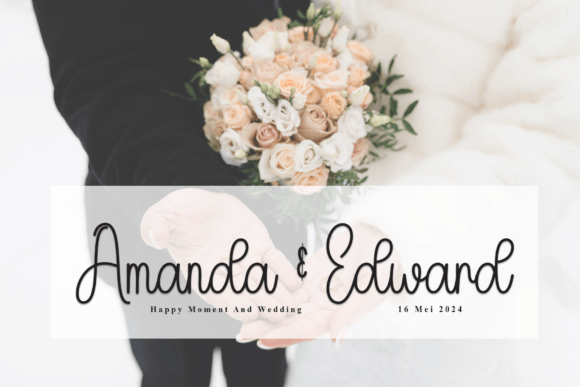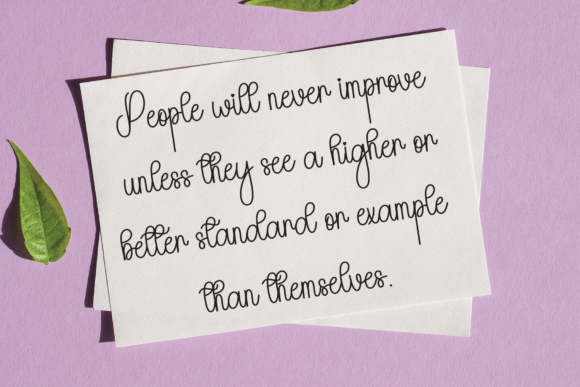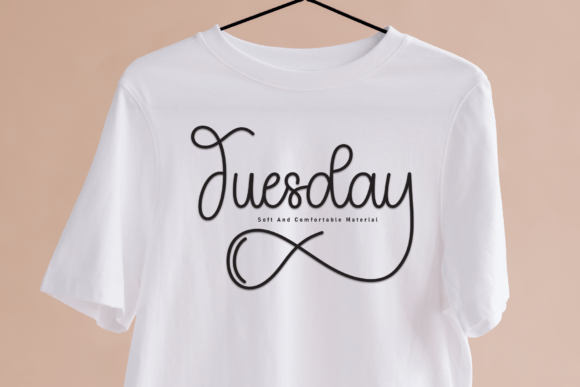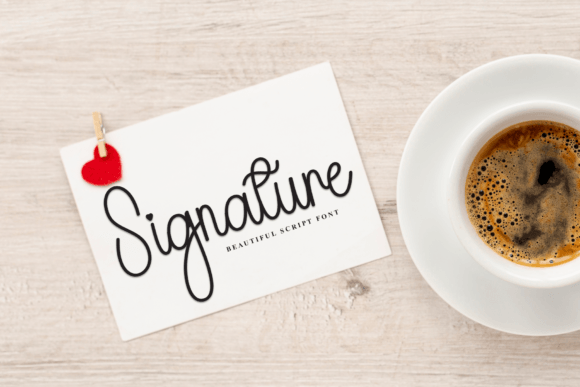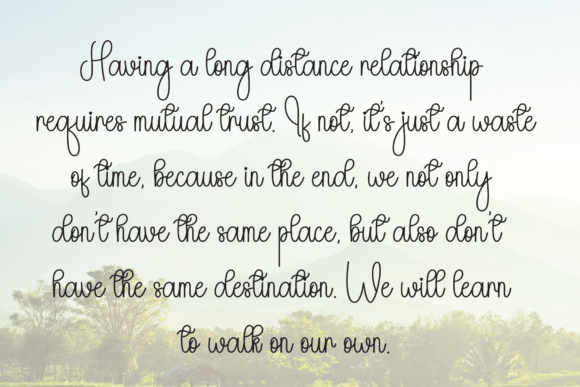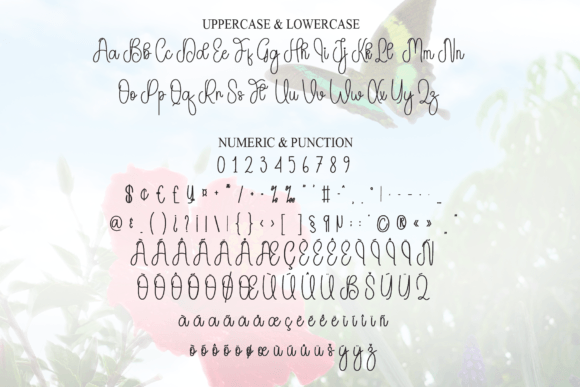
Do you ever find yourself staring at a blank page, searching for the perfect font to bring your creative vision to life? For designers, this moment is a familiar one – a blank slate waiting to be filled with the perfect combination of style and personality. And that’s where the enchanting Butterfly Font comes in.
This handcrafted font is more than just a typographic choice – it’s a way to infuse your designs with a sense of joy and playfulness. Whether you’re creating wedding invitations, greeting cards, or any other project that needs a little extra sparkle, Butterfly Font is the perfect addition to your toolkit. Its endearing nature and friendly charm make it a valuable asset for designers looking to add a touch of whimsy to their work.
Key Features of Butterfly Font
- Font Style: Hand-drawn, elegant script font
- Unique Characteristics: Features a delicate, whimsical feel with subtle flourishes and connections between letters
Designer Review: Butterfly Font
I’ve had the chance to work with the Butterfly Font, and I must say, it’s a unique addition to any design project. ✨ Its playful, whimsical feel is perfect for projects that need a touch of elegance and sophistication. The font’s intricate details and flourishes add a level of complexity that’s hard to find in other fonts.
- ✨ Versatility: The Butterfly Font can be used in a wide range of design projects, from logos to brochures.
- ✨ Legibility: Despite its intricate details, the font is surprisingly easy to read, even at smaller sizes.
- ✨ Creativity: The font’s unique style encourages designers to think outside the box and come up with innovative ideas.
- ⚠️ Limited font sizes: The font can become difficult to read at very small sizes, which may limit its use in certain applications.
- ⚠️ Not ideal for body text: Due to its decorative nature, the font is not well-suited for large blocks of text.
Overall, I’d say the Butterfly Font is a great choice for designers who want to add a touch of whimsy and elegance to their projects. With a little creativity and caution, it can be a valuable addition to any design toolkit.
The Butterfly Font is ideal for adding a whimsical touch to invitations, greeting cards, and other creative projects. It’s also great for headings and titles in children’s books, educational materials, and fashion design.